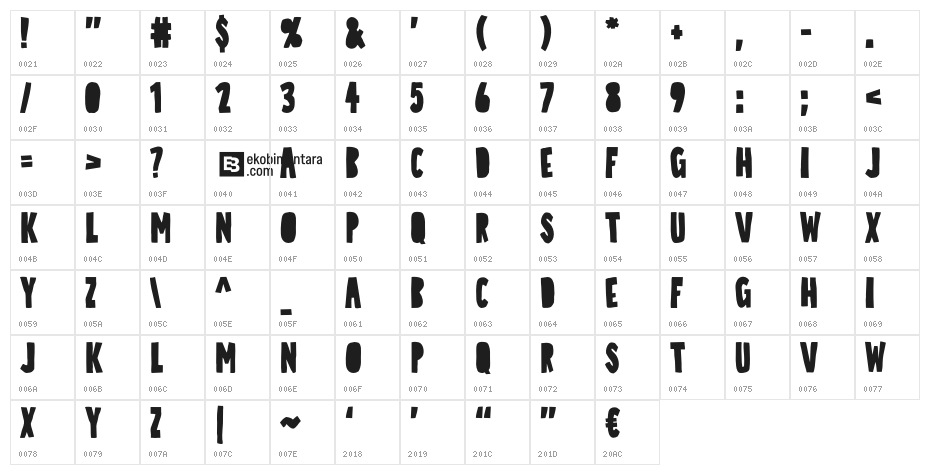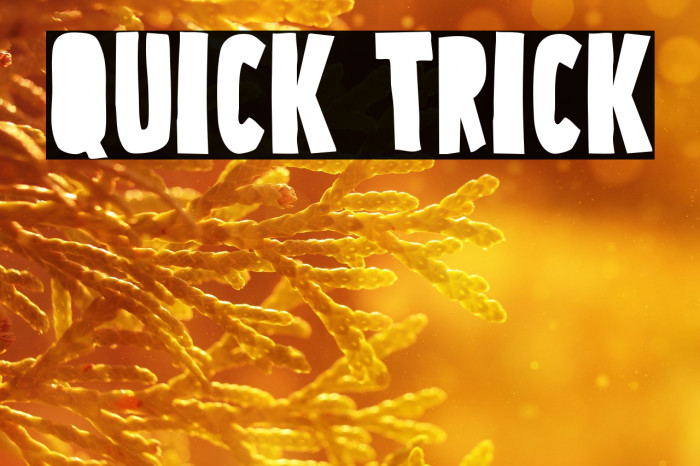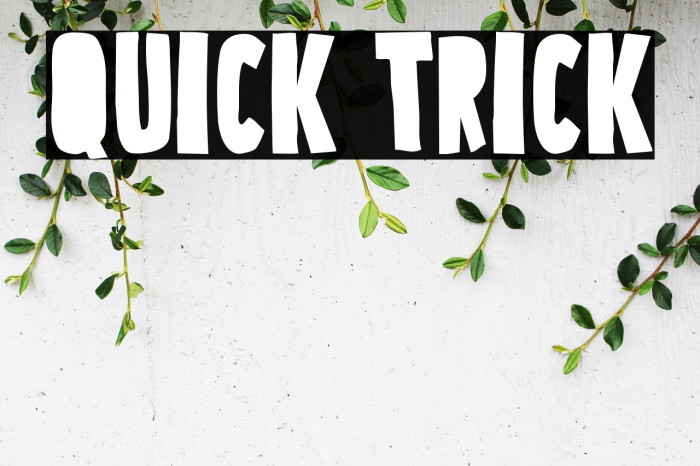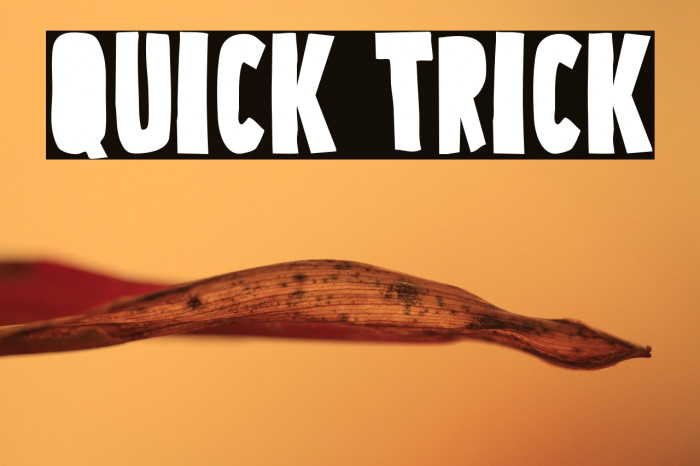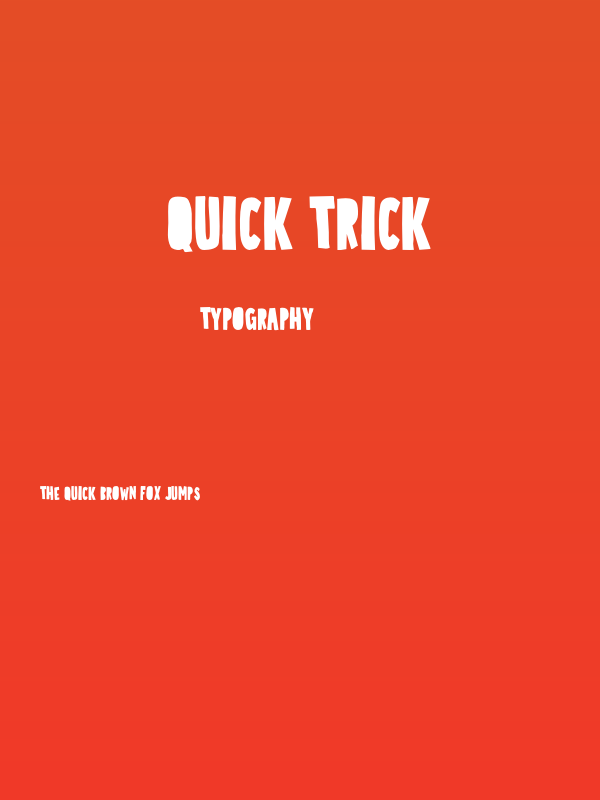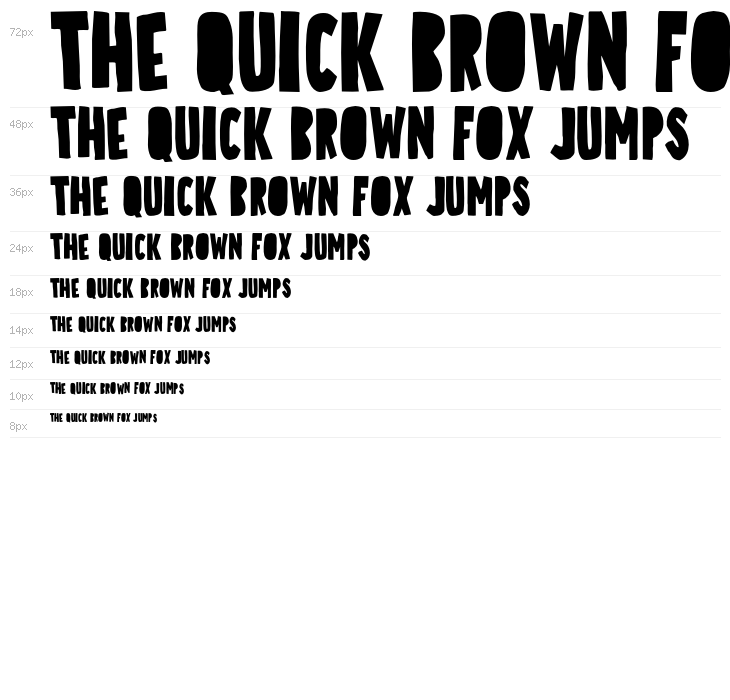
Quick Trick Font
Quick Trick Description
This font features bold, playful, and exaggerated letterforms that convey a sense of fun and creativity. The characters are thick and have a hand-drawn appearance, with uneven edges that add to their whimsical charm. The uppercase and lowercase letters maintain a consistent style, with a slightly condensed width that enhances their boldness. Numbers and special characters follow the same design ethos, ensuring a cohesive look across all elements. The font's unique style makes it ideal for projects that require a touch of personality and flair.
| Width | Condensed |
| Overall Style | Playful, Whimsical, Creative |
| Proposed Projects | Ideal for children's book covers, playful branding, posters, and creative event invitations. |